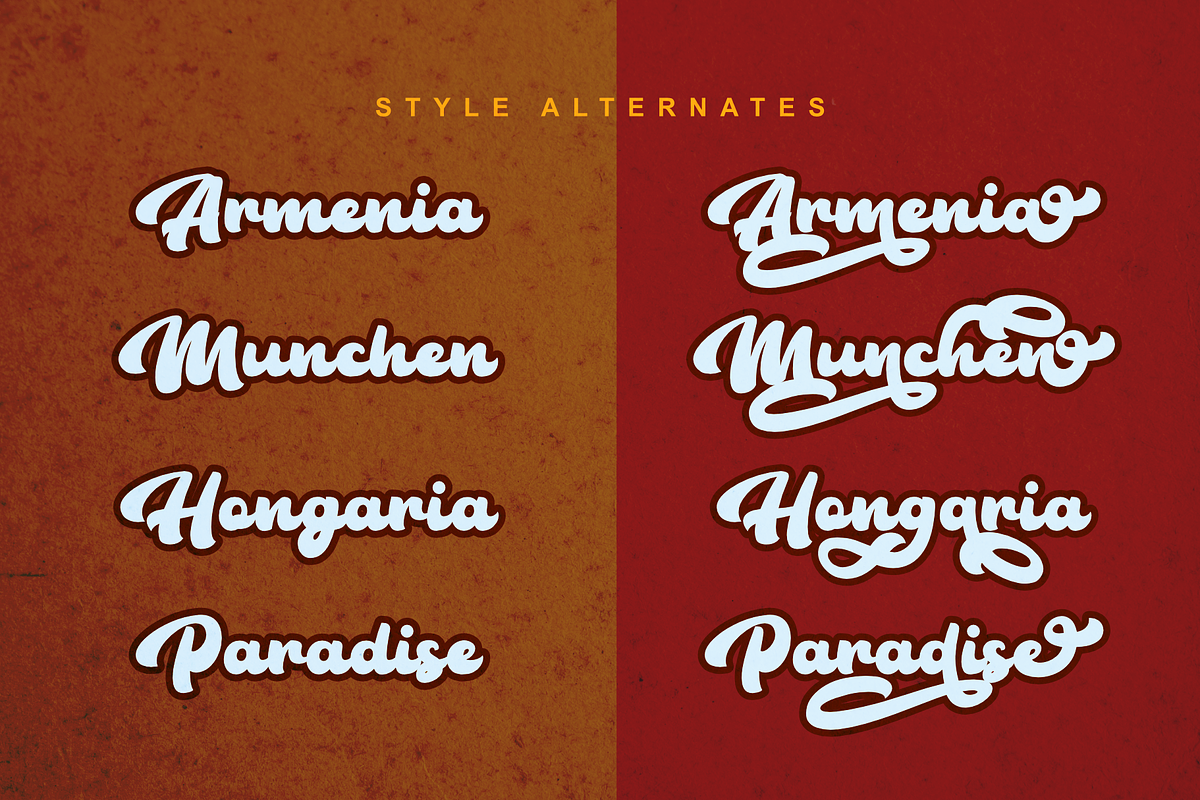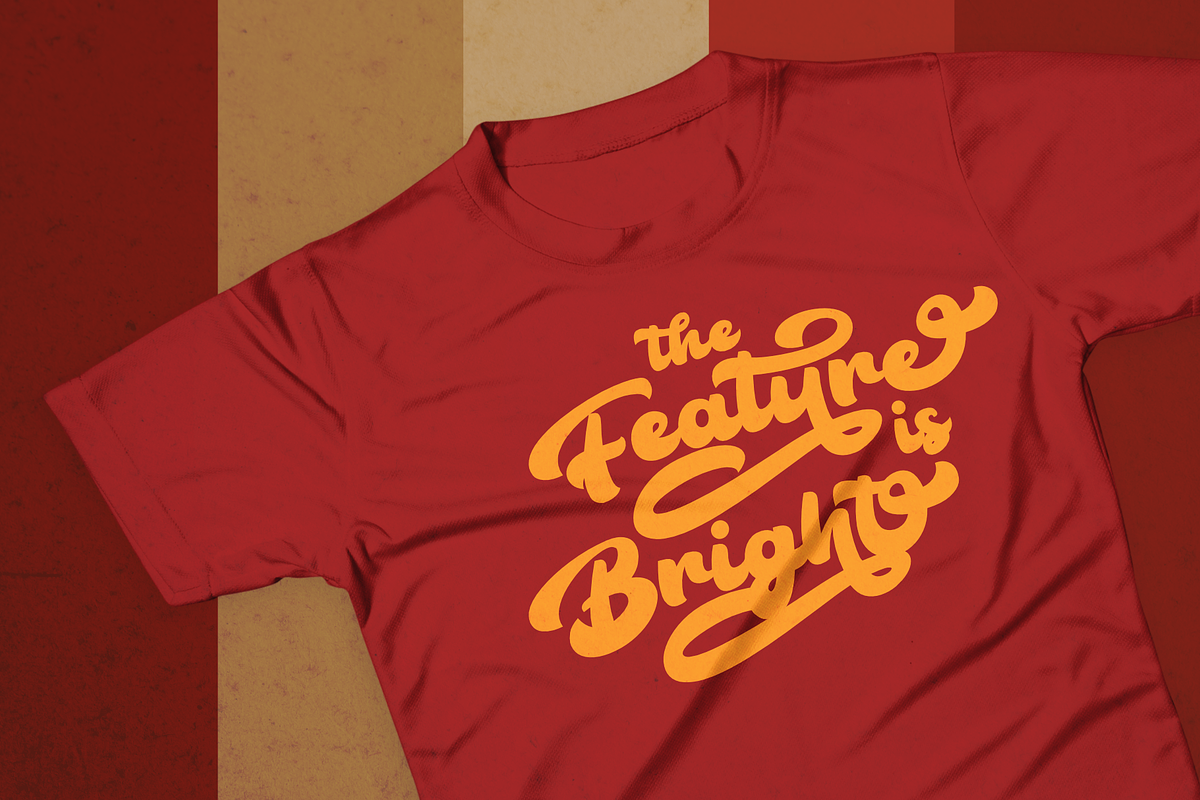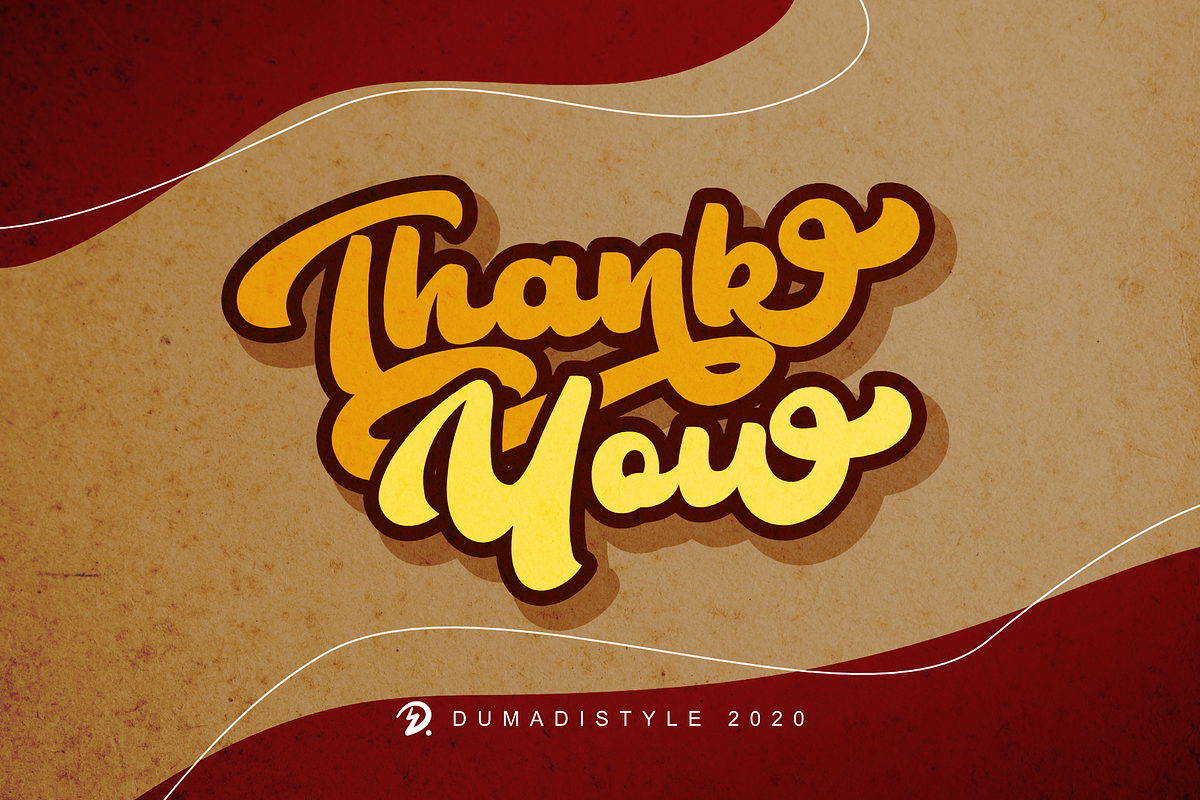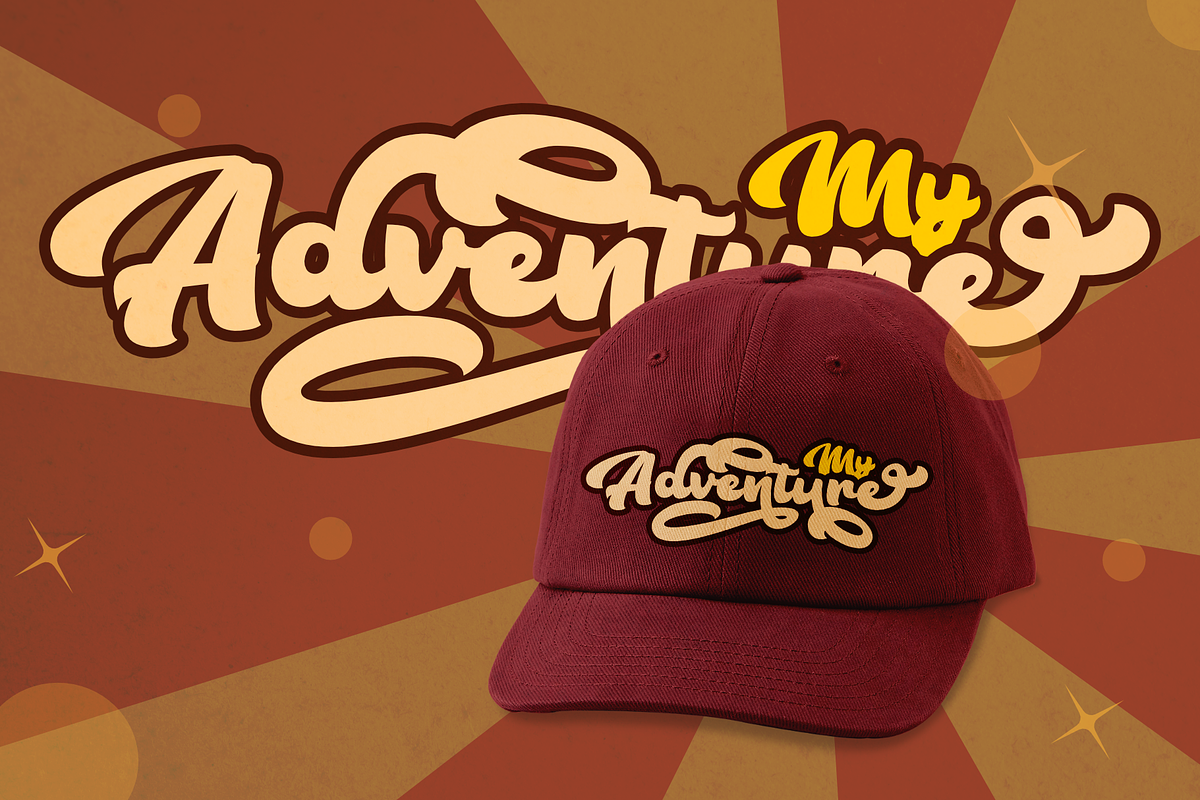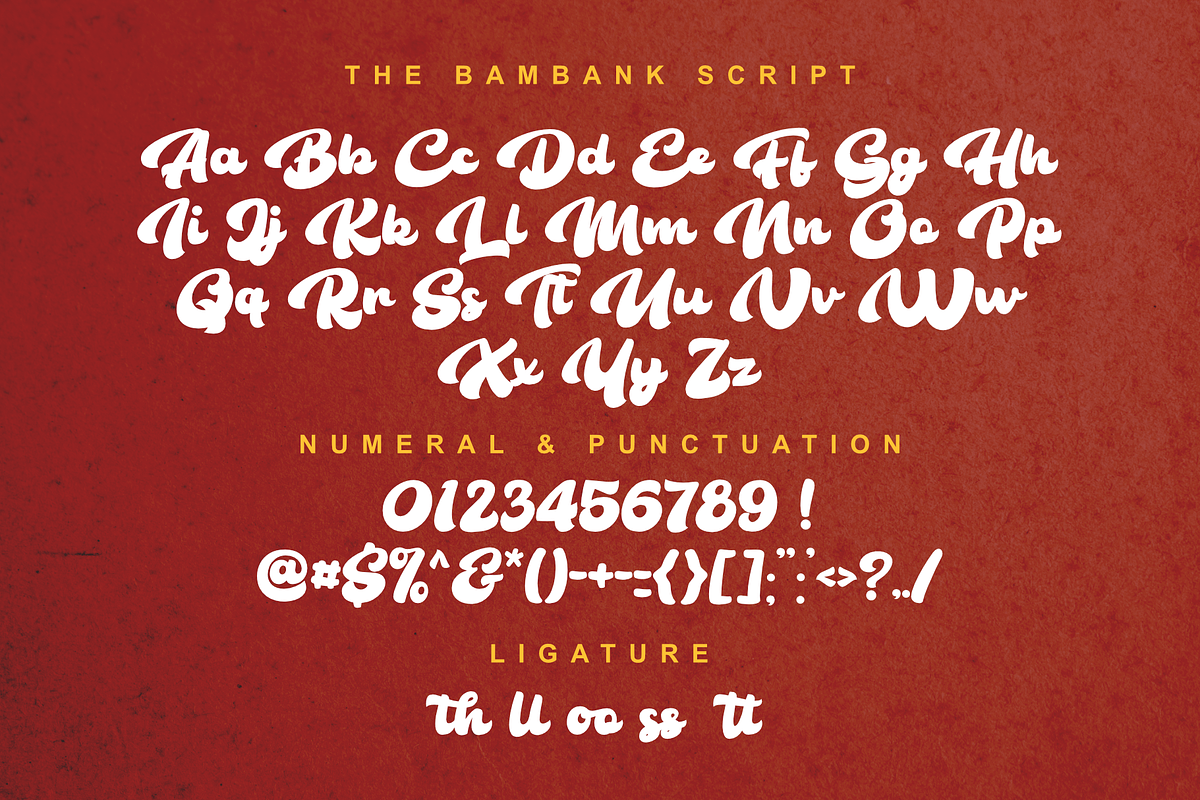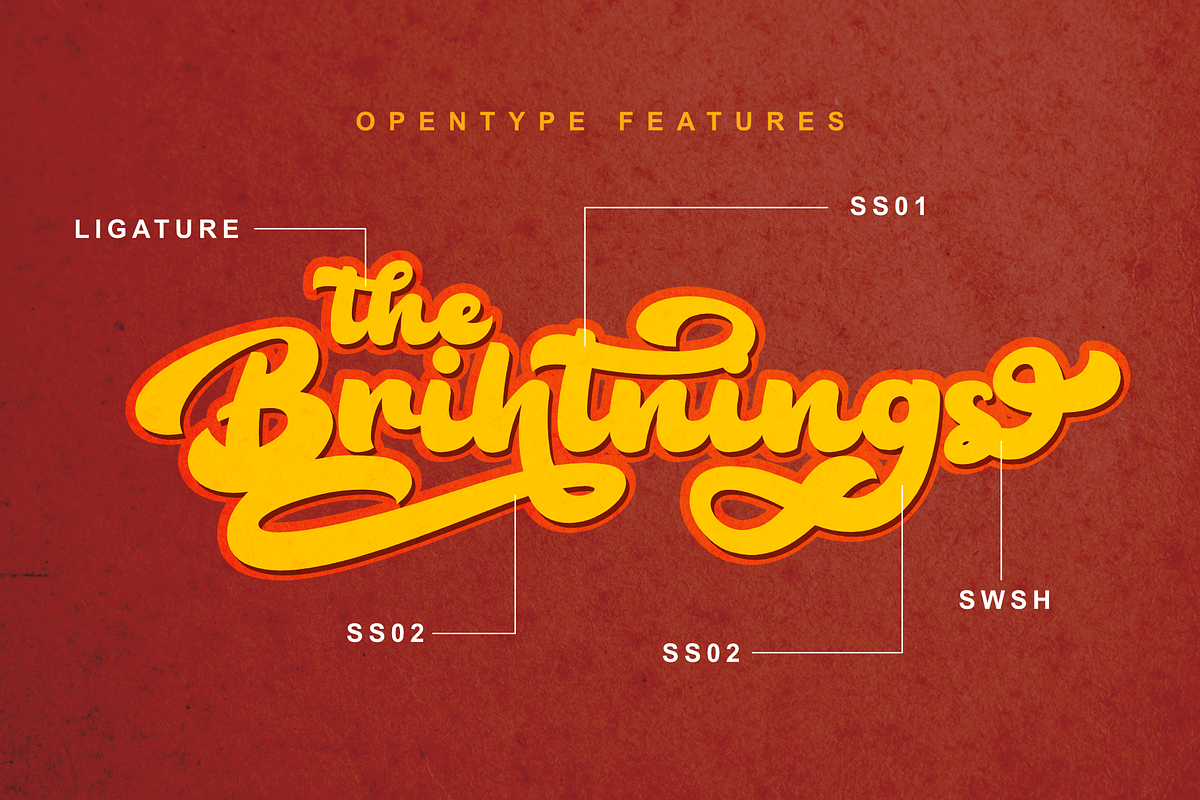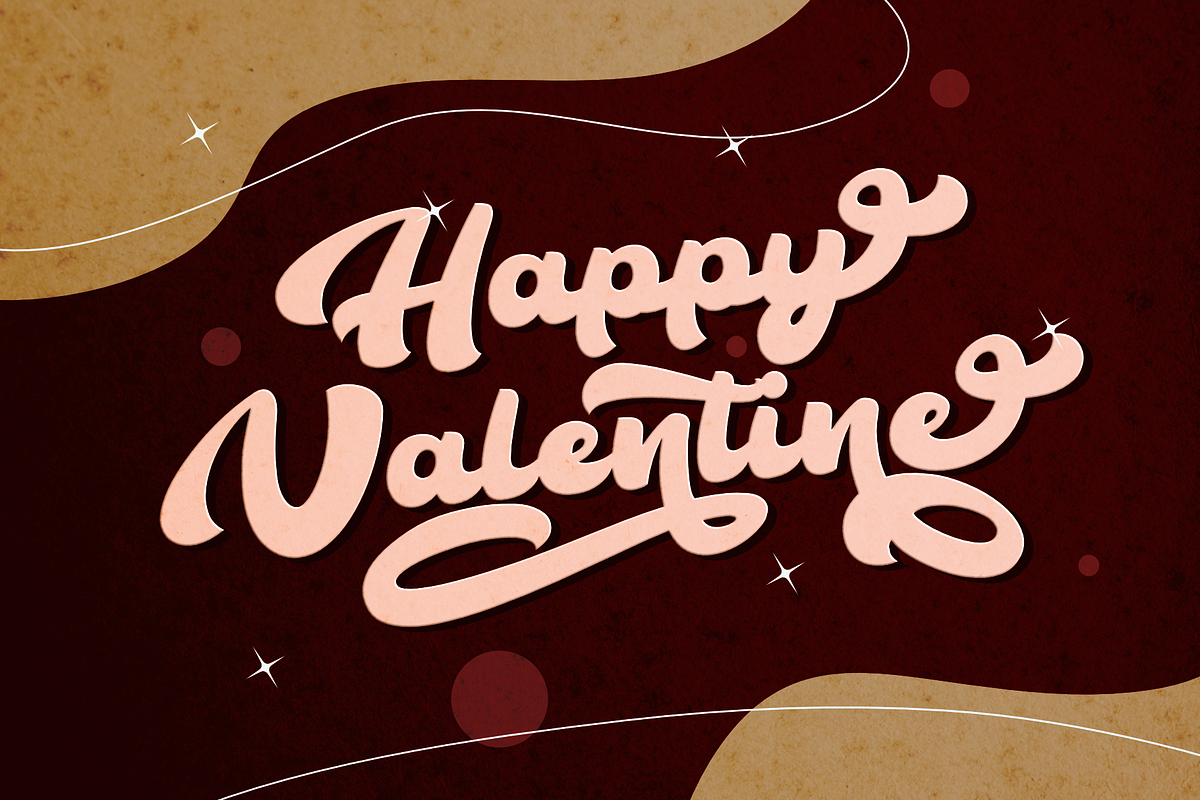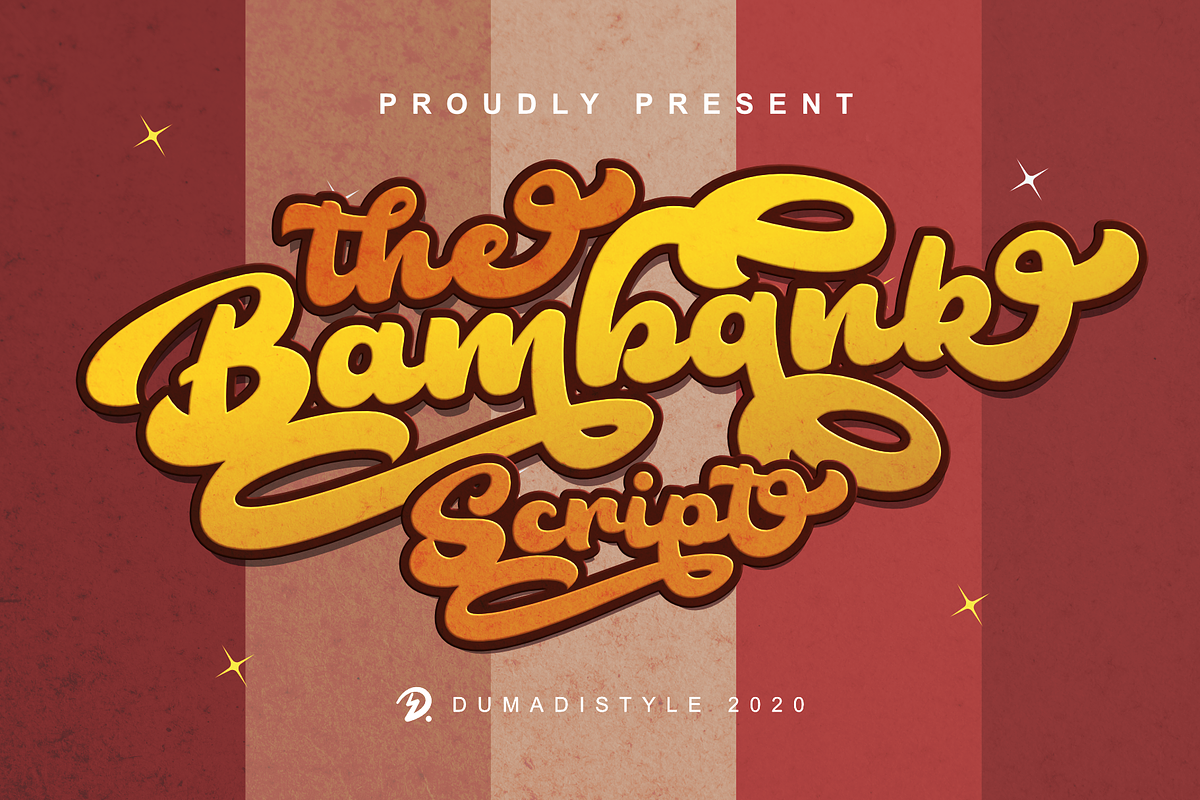
The Bambank Script
The Bambank Script is a fun stylish font that can be used for many designs, including T-shirt designs, logo designs, hat designs, book covers, advertisements, Movie Titles and many more. by adding an Alternative style that we have provided in your font, it will make your design look more perfect.
Latin base A-Z and a-z Numbers Symbol Alternative Style Style Set ss01 ss02 Ending SWSH PUA encoding Multilanguage support